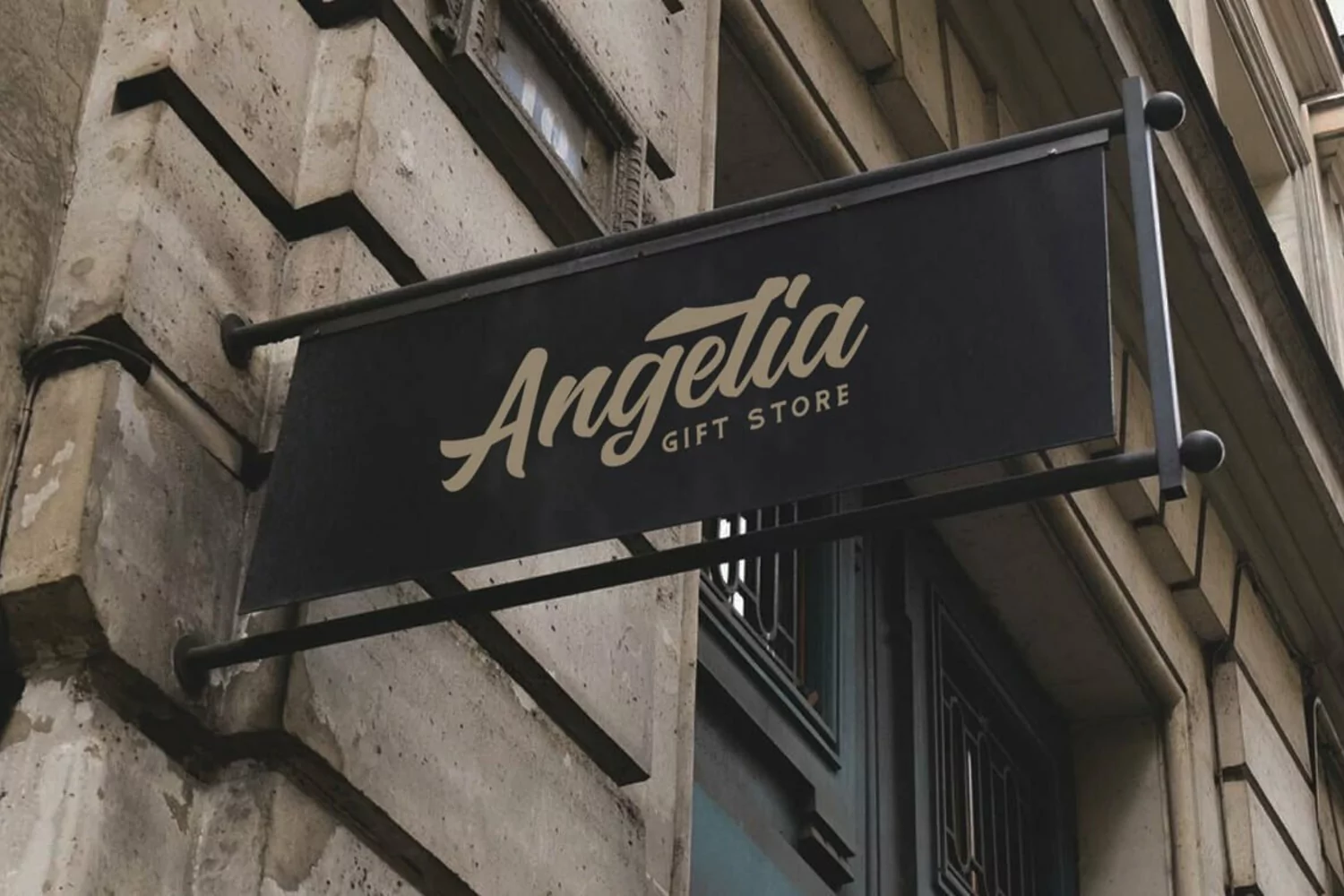
Hadrey Font Inspired by Modern Vintage & Retro style and combination with old american traditional style. Ideal for logos, handwritten quotes, product packaging, header, poster, merchandise, social media & greeting cards.